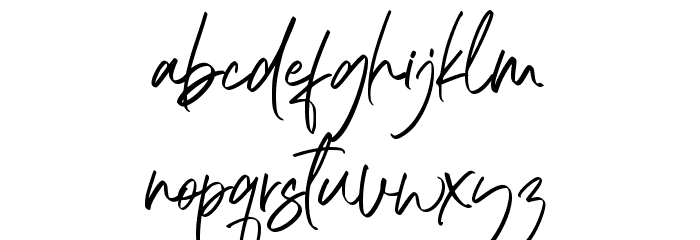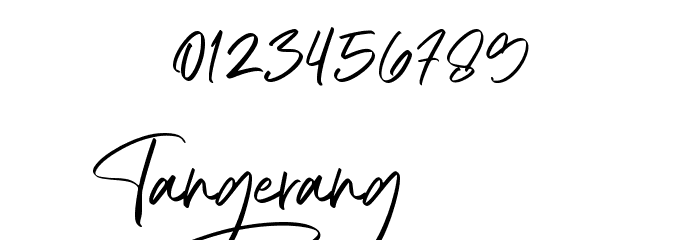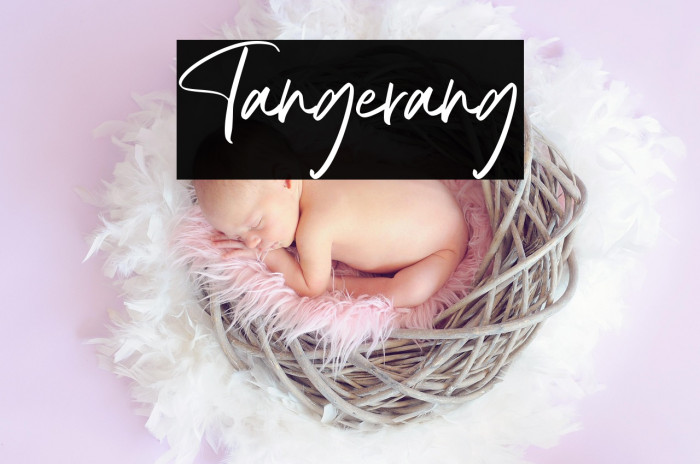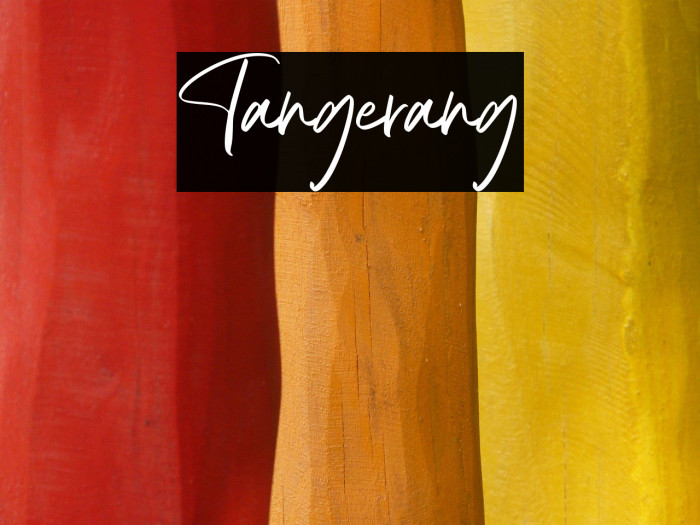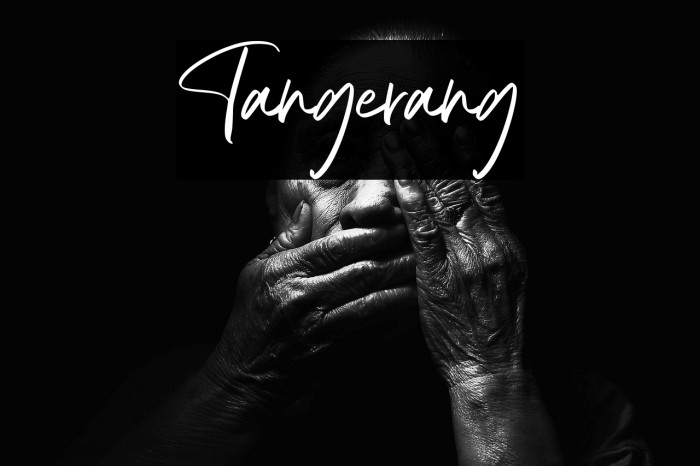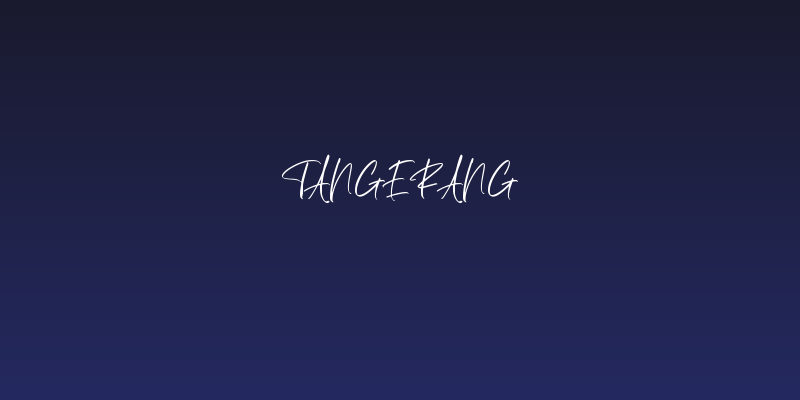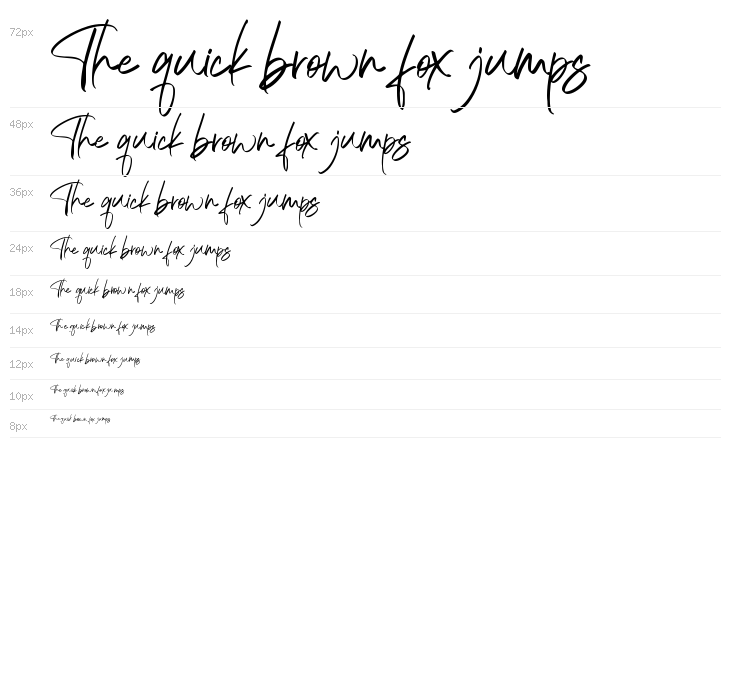
Tangerang Font
This font features a dynamic and fluid script style, characterized by its elegant, flowing lines and a handwritten appearance. The letters are connected with smooth curves, giving it a natural and organic feel. The uppercase letters are bold and expressive, while the lowercase letters maintain a consistent flow, enhancing readability. The numerals and special characters are crafted with the same attention to detail, ensuring a cohesive look across all text. This font exudes a sense of sophistication and creativity, making it ideal for projects that require a personal touch.
A fluid and elegant script font with a handwritten style.
- Font: Tangerang
- Proposed Projects: Ideal for wedding invitations, greeting cards, branding, and logo design.
- Category: Script
- Overall Style: Elegant
- Use Case: Logos, Invitations, Greeting Cards